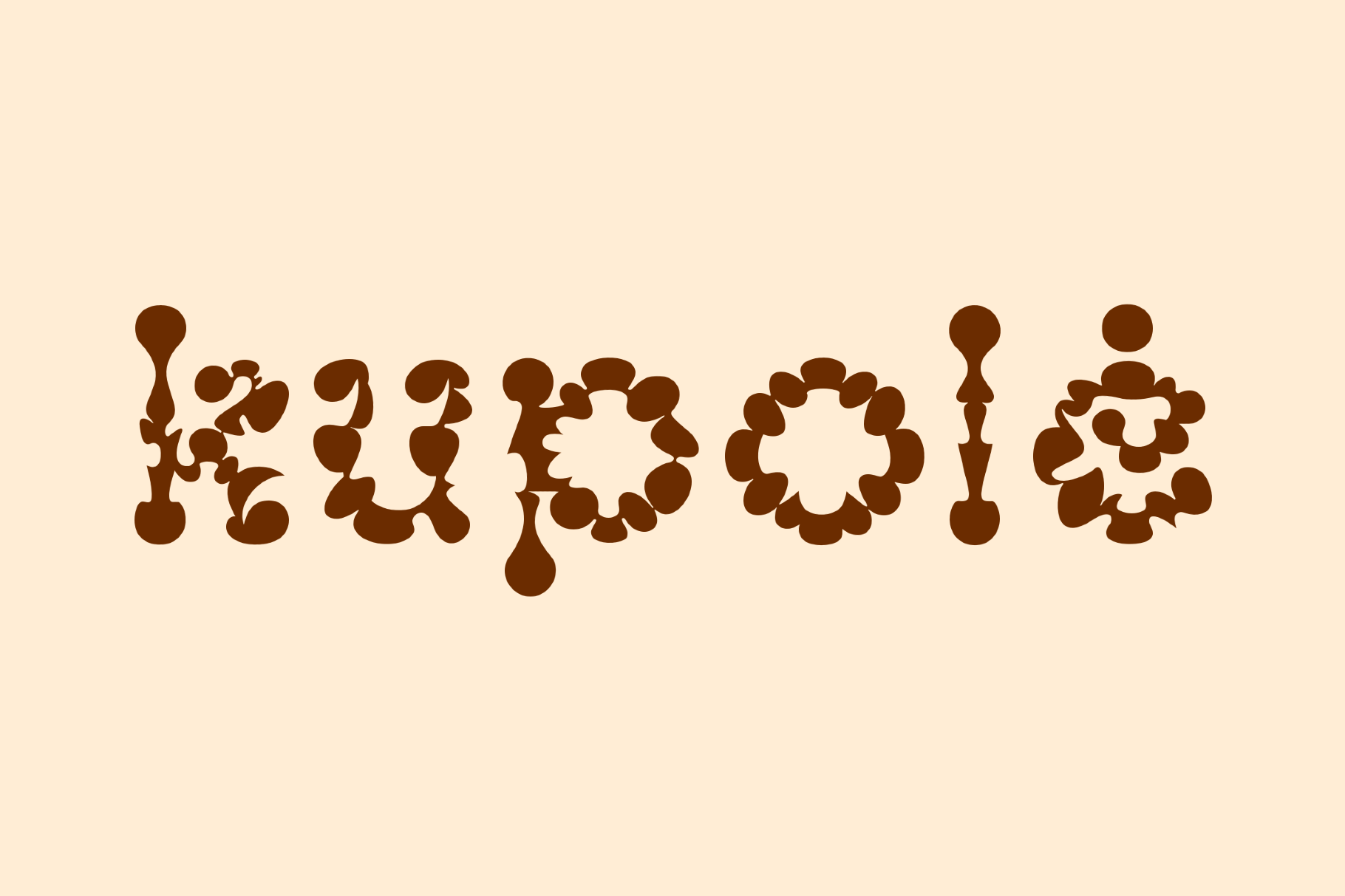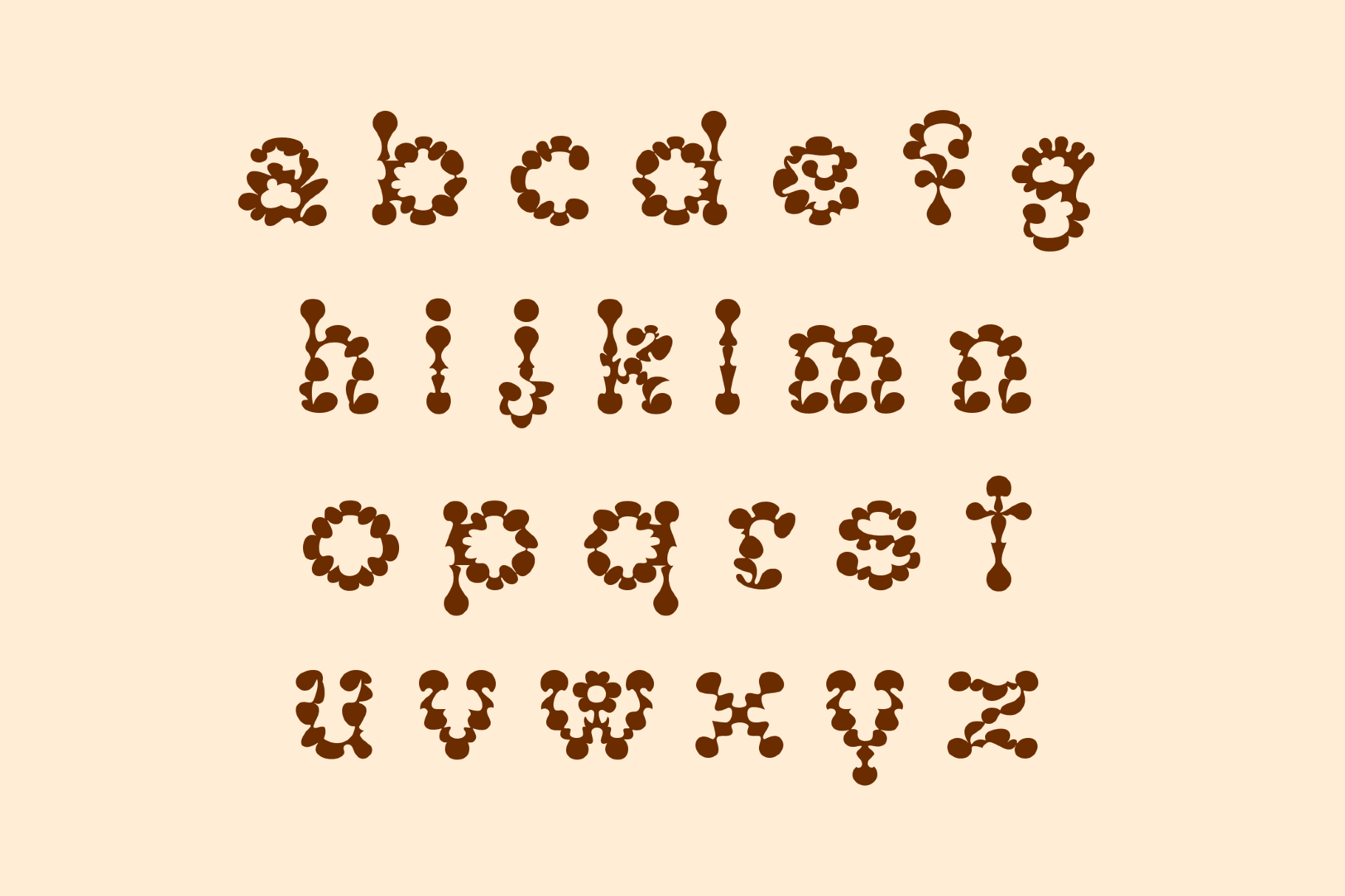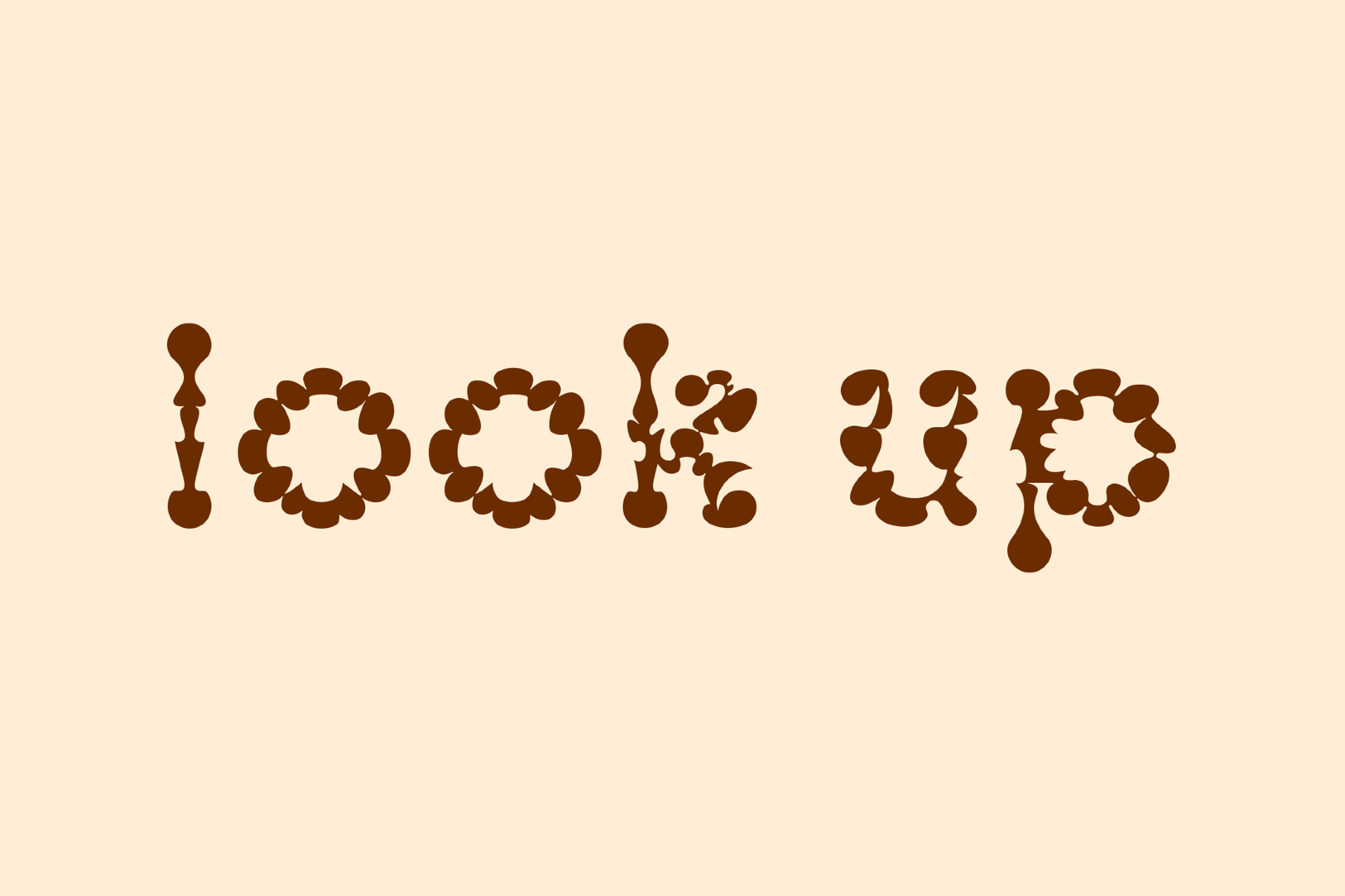
Kupole - Free Ornamental Font
Kupole is a decorative font made of petal-like dots and inkblot curves. It recalls flower-power graphics, embroidered folk ornament and psychedelic lettering from late-1960s posters. It works for festival identities, album covers, poster headlines, playful packaging, editorial titles, sticker designs and branding.